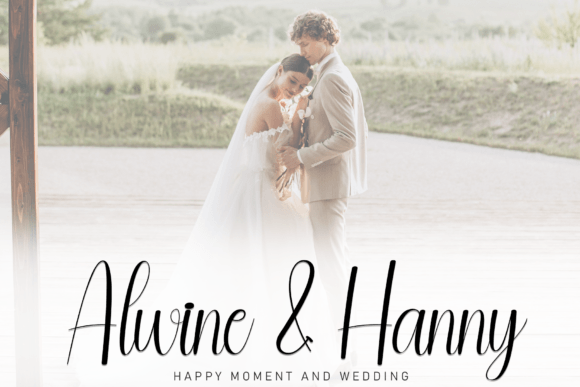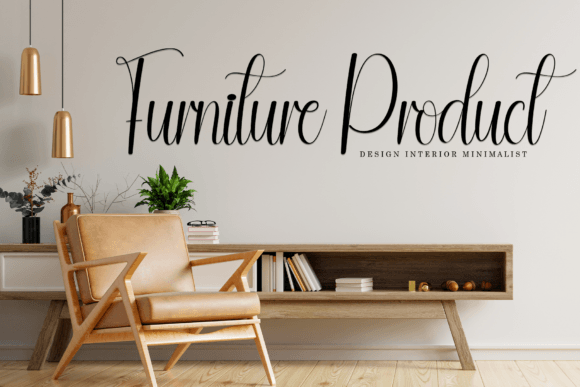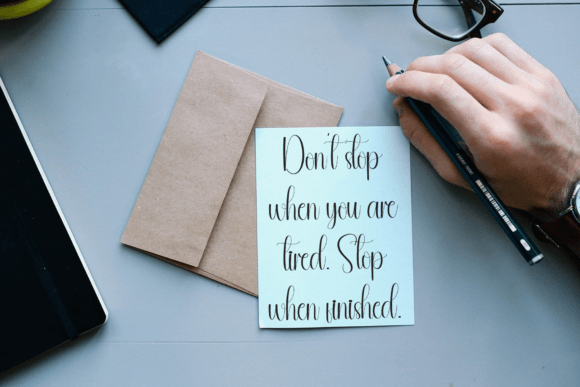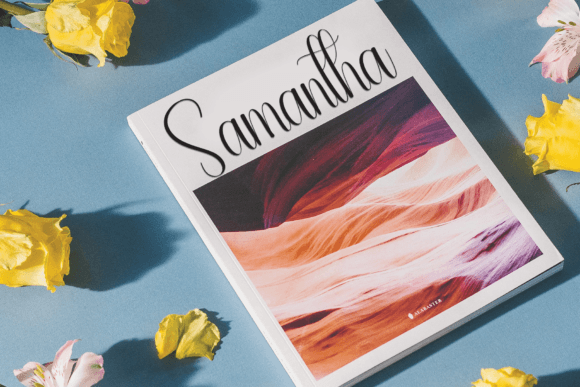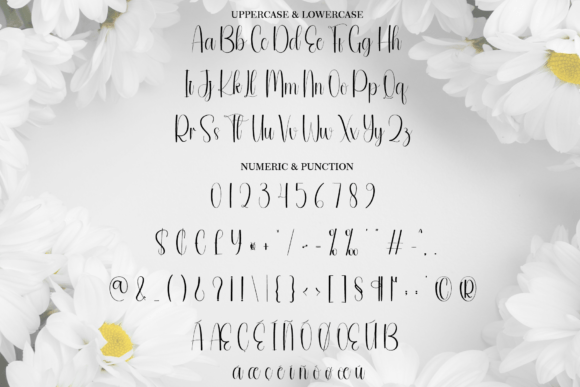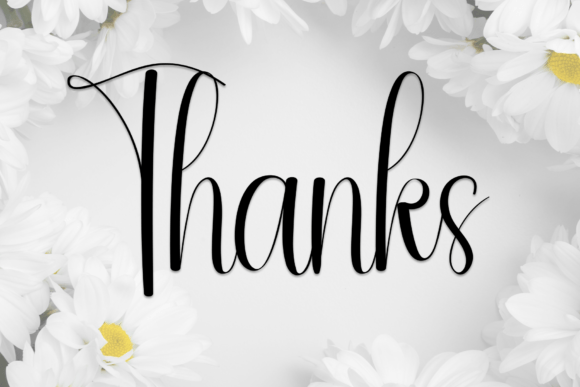
The Sweet Charm of Daisy Font
Have you ever been brainstorming a new design project and stumbled upon the perfect font to bring your vision to life? That’s exactly what happened to me when I discovered the Daisy Font. Its whimsical charm instantly made me think of sunny afternoons and handwritten love letters.
The Daisy Font is a beautiful, handwritten font that exudes warmth and friendliness. Its fresh and casual feel makes it perfect for writing wedding invitations, birthday cards, or any other design that requires a lovely touch. Whether you’re a professional designer or a DIY enthusiast, this font is sure to add a personal touch to your creations.
What makes the Daisy Font so valuable to designers is its versatility and elegance. With its delicate strokes and natural feel, it’s the perfect choice for projects that need a touch of sophistication and charm. Whether you’re looking to create a romantic wedding invitation or a heartfelt birthday card, the Daisy Font is sure to impress.
Daisy Font Key Features
- Font Size: Daisy Font is a medium-sized font with an average character width, making it suitable for body text, headings, and titles.
- Unique Characteristics: Daisy Font features a unique blend of modern and vintage elements, with subtle flair and ornate details that give it a distinctive and elegant appearance.
- Font Weight: Daisy Font is available in multiple weights, including Light, Regular, Bold, and Black, allowing users to choose the perfect weight to suit their design needs.
Daisy Font Review
I’ve had the chance to work with “Daisy Font” and I must say it’s a refreshing addition to any design project. Here are some of its standout features: ✨
- Legibility: The font is highly legible, even at smaller font sizes, making it perfect for body text or headings.
- Friendliness: The rounded edges and soft curves give it a friendly, approachable feel that’s perfect for designs that need to convey a sense of approachability.
- Customization: The font is highly customizable, allowing you to adjust the weight, spacing, and other parameters to fit your design needs.
- Lack of distinctiveness: While the font is pleasant to look at, it’s not particularly distinctive or memorable, which may make it harder to stand out in crowded designs.
- Not ideal for bold statements: The friendly, approachable feel of the font may not be the best choice for designs that need to make a bold statement or convey a sense of urgency.
Overall, I think “Daisy Font” is a solid choice for designs that need to convey a sense of approachability and friendliness. While it may not be the most distinctive or memorable font, it’s a reliable and versatile choice that’s sure to please.
Daisy Font: A Practical Application Guide
The Daisy Font is ideal for:
1. Children’s educational materials
2. Wedding invitations and stationery
3. Floral-themed designs
1. Pair the Daisy Font with bright and playful colors.
2. Use the font for titles and headings to add visual interest.
3. Experiment with different font sizes and styles to create a unique look.
Alternatives to Daisy Font